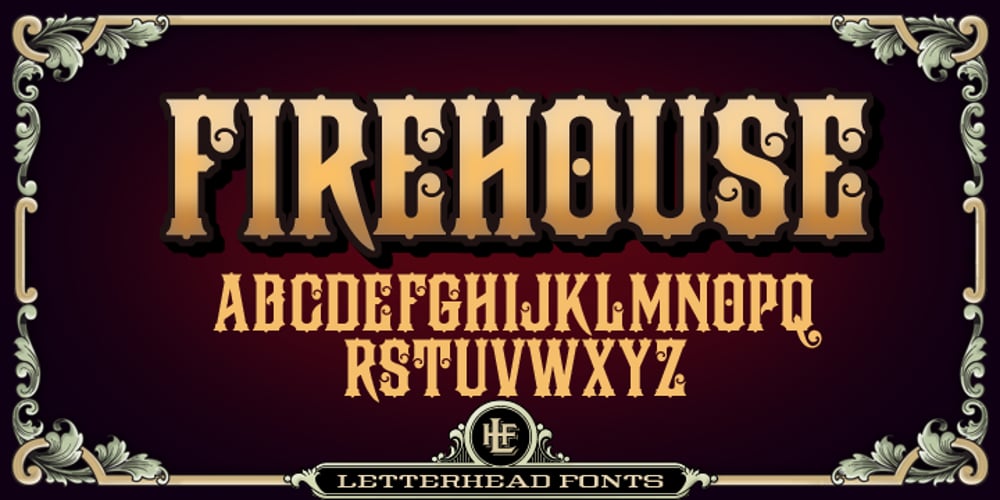
LHF Firehouse
LHF Firehouse font
LHF Firehouse Font Family was designed by Thomas Kennedy and published by Letterhead Fonts. LHF Firehouse contains 1 styles and family package options. This style was actually inspired by some old stock certificates Tom had collected. It’s a very versatile font and allows for some horizontal stretching. Fits almost any space.